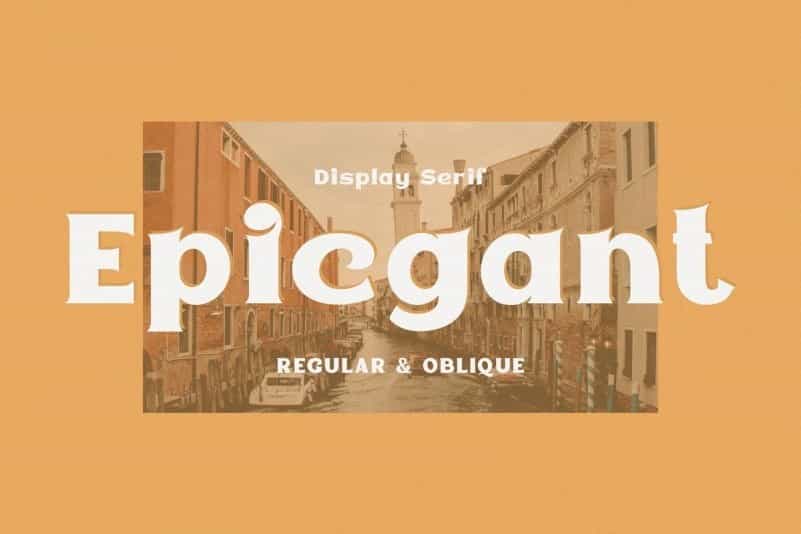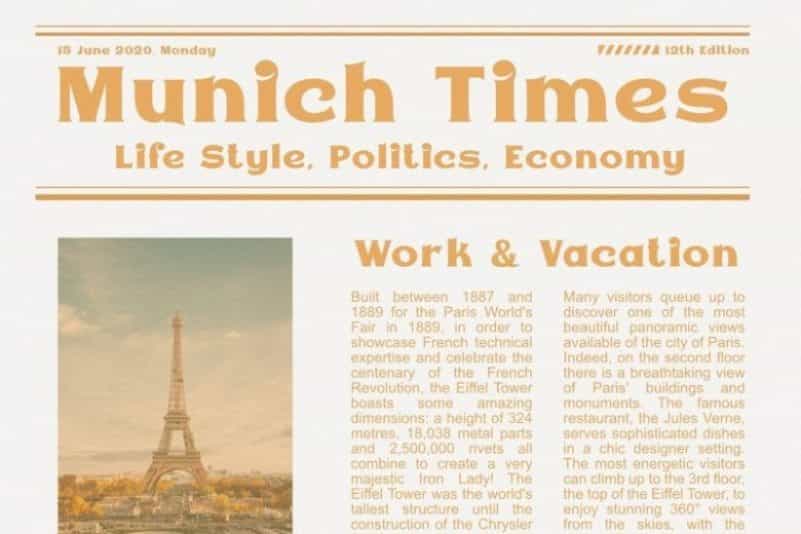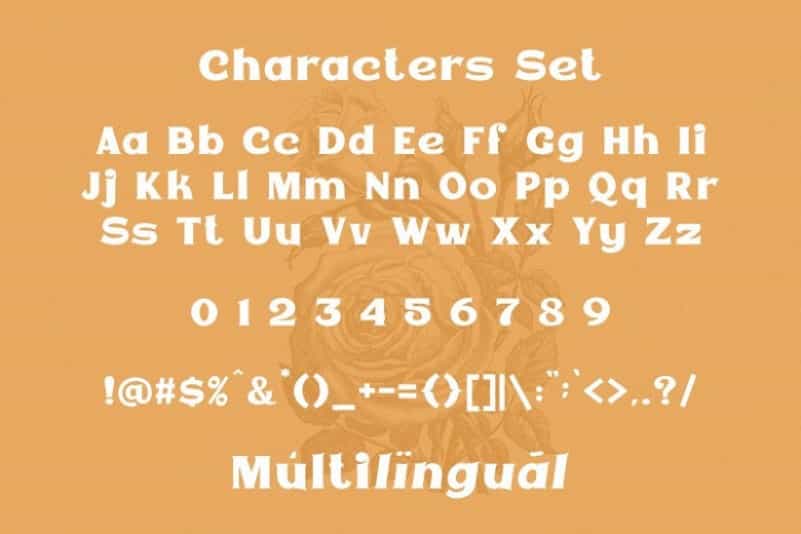
Epicgant serif font inspired by Roman fonts of the past and the structures of character in modern contemporary serif fonts. Because of its design it is able to meet your requirements in any of your creative endeavors.